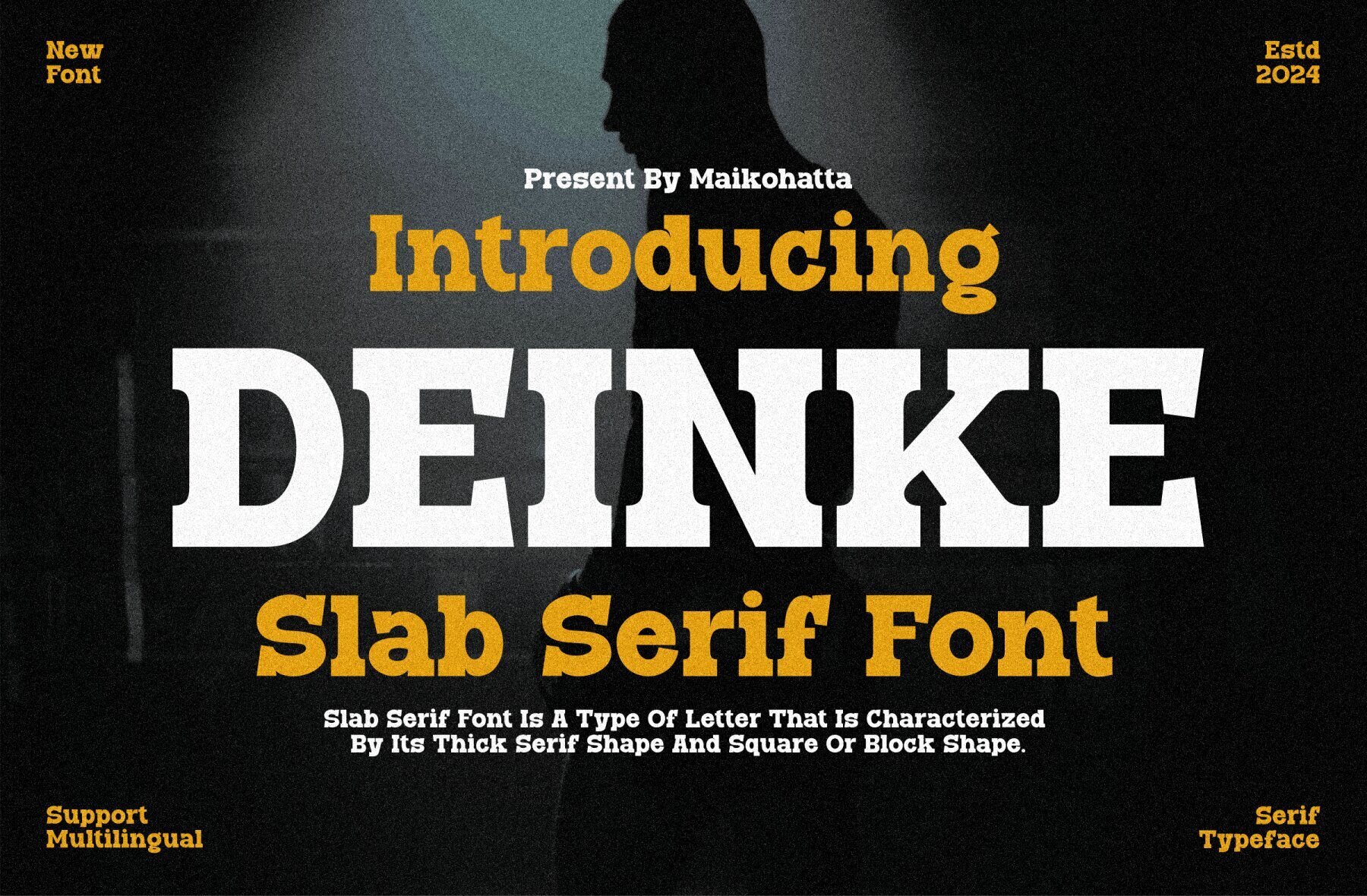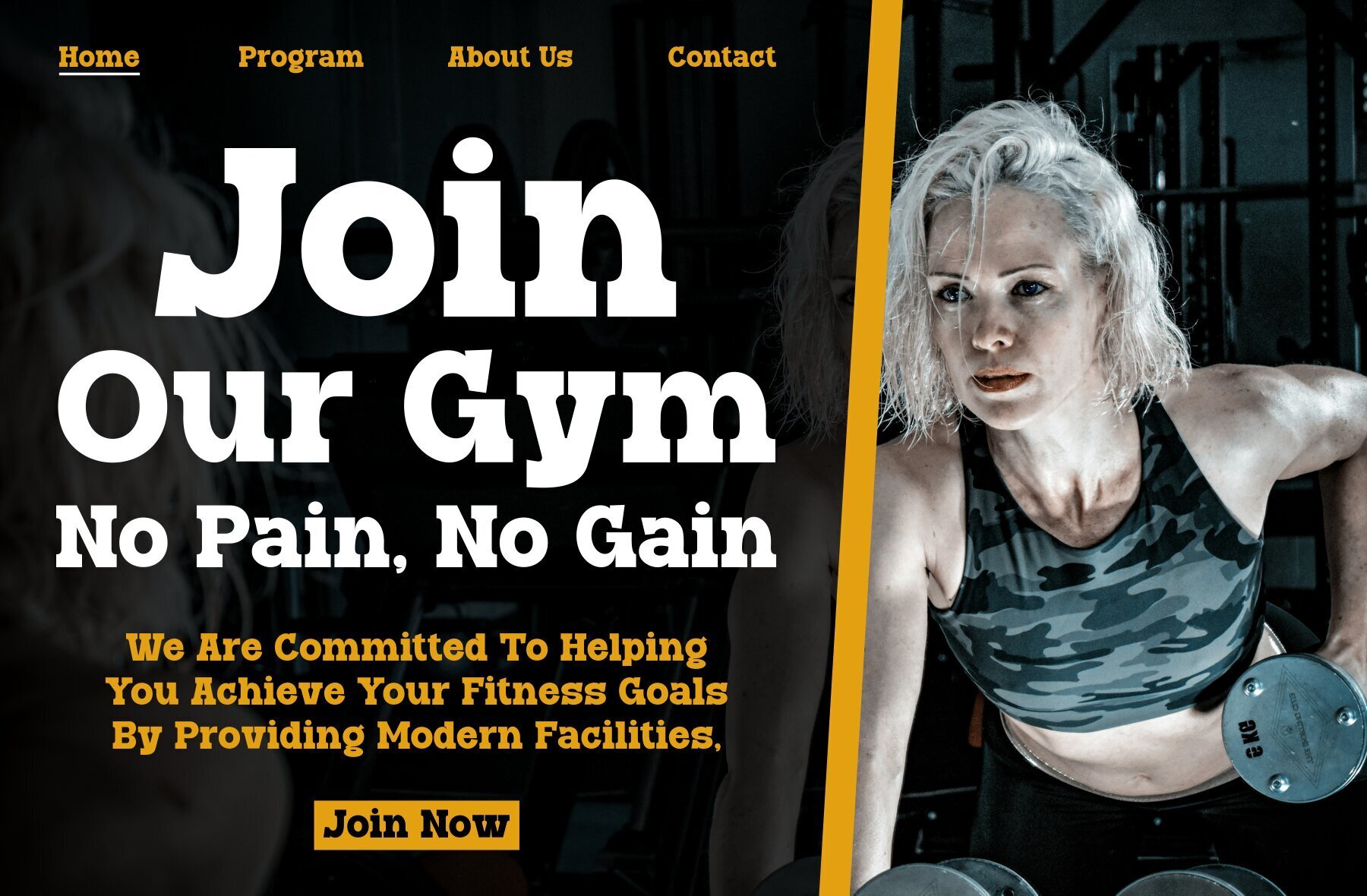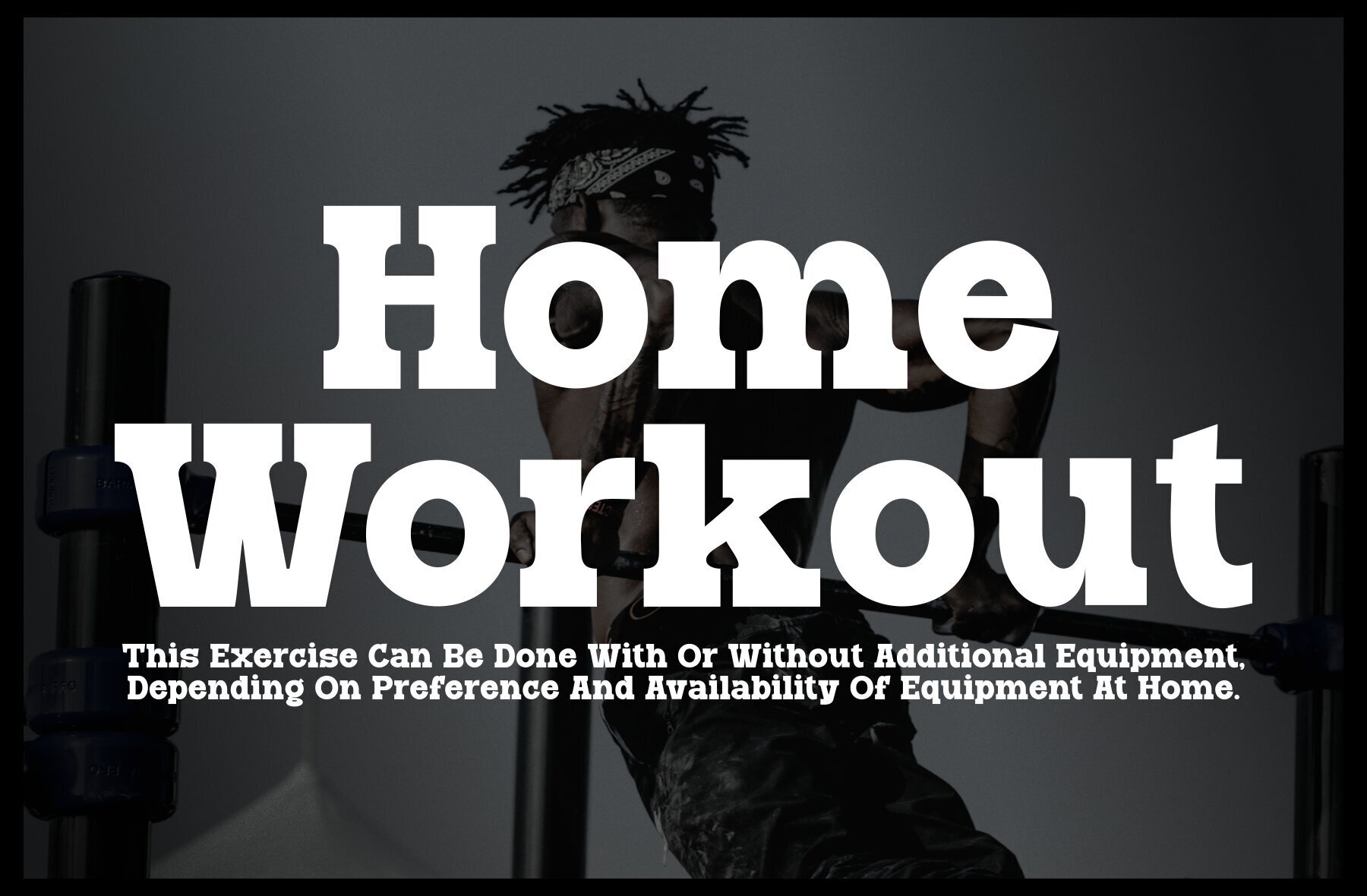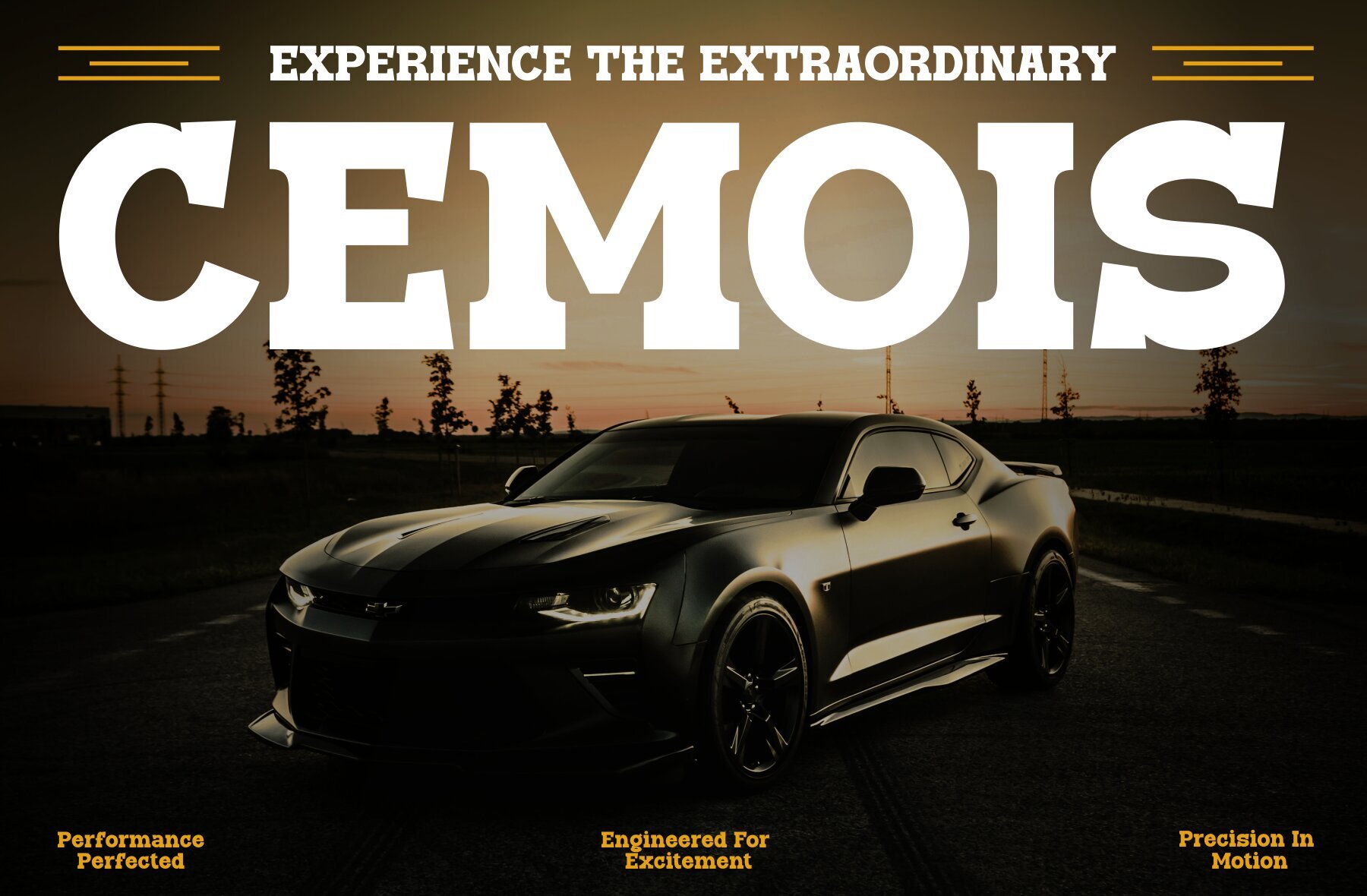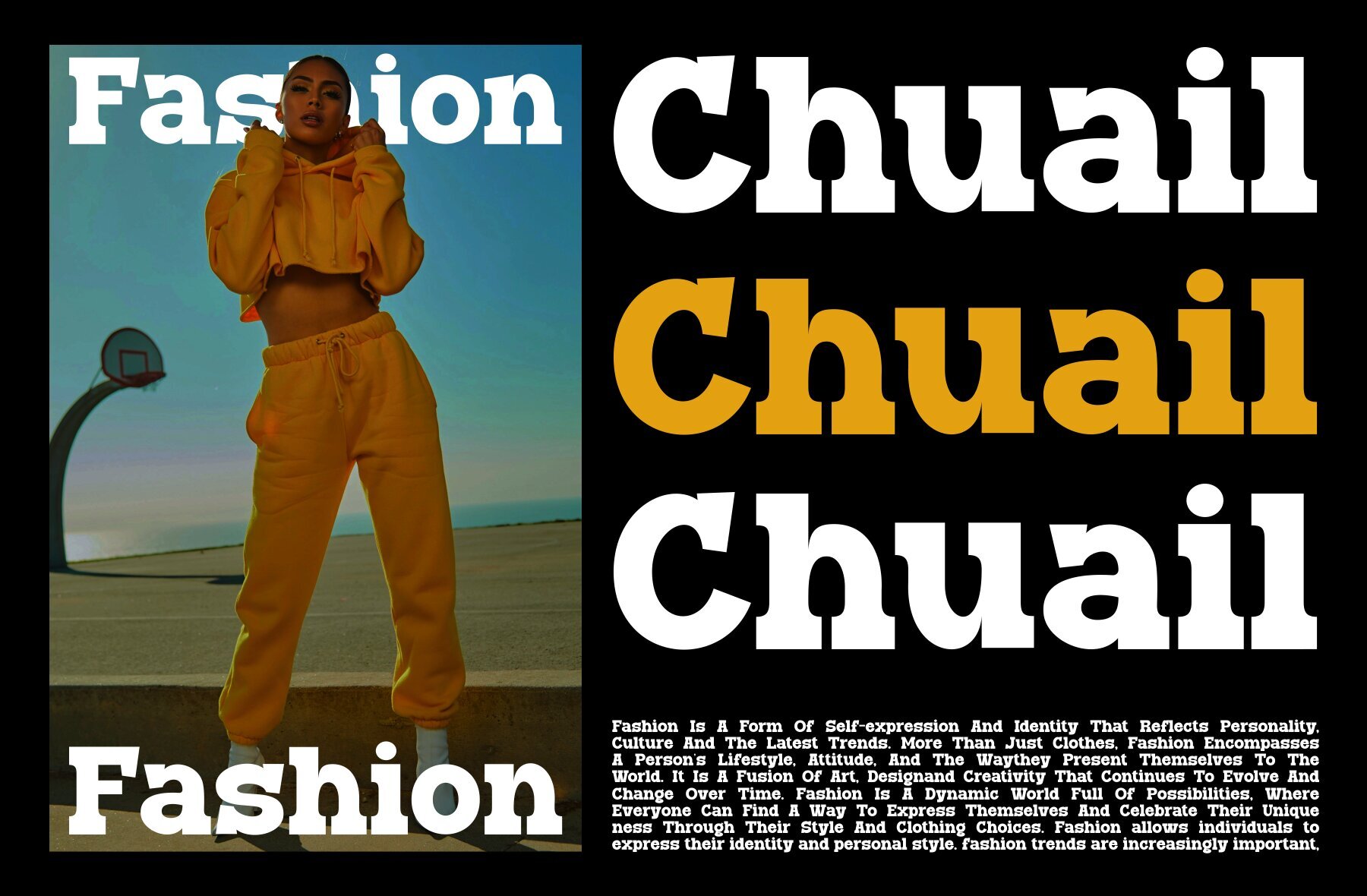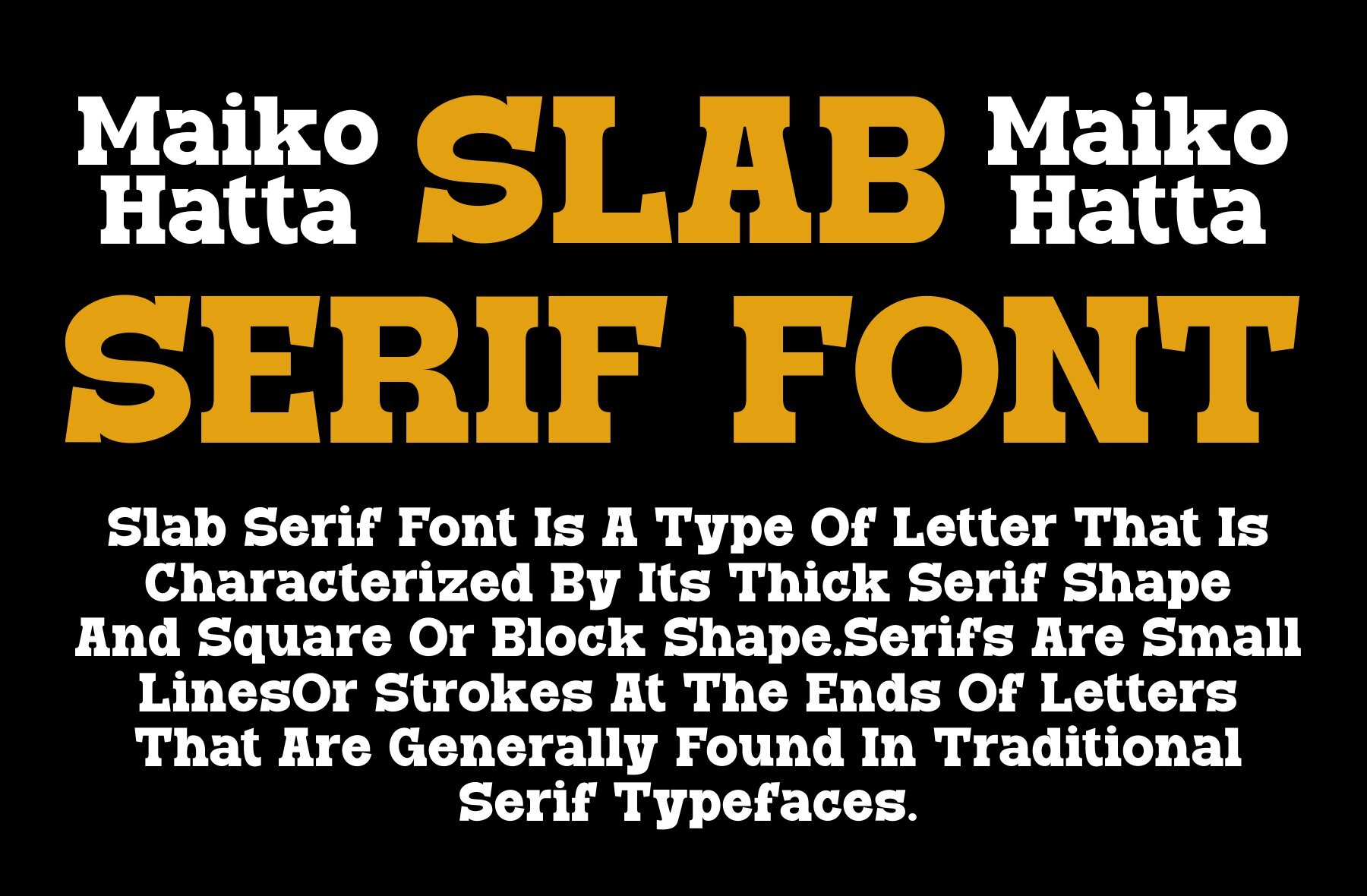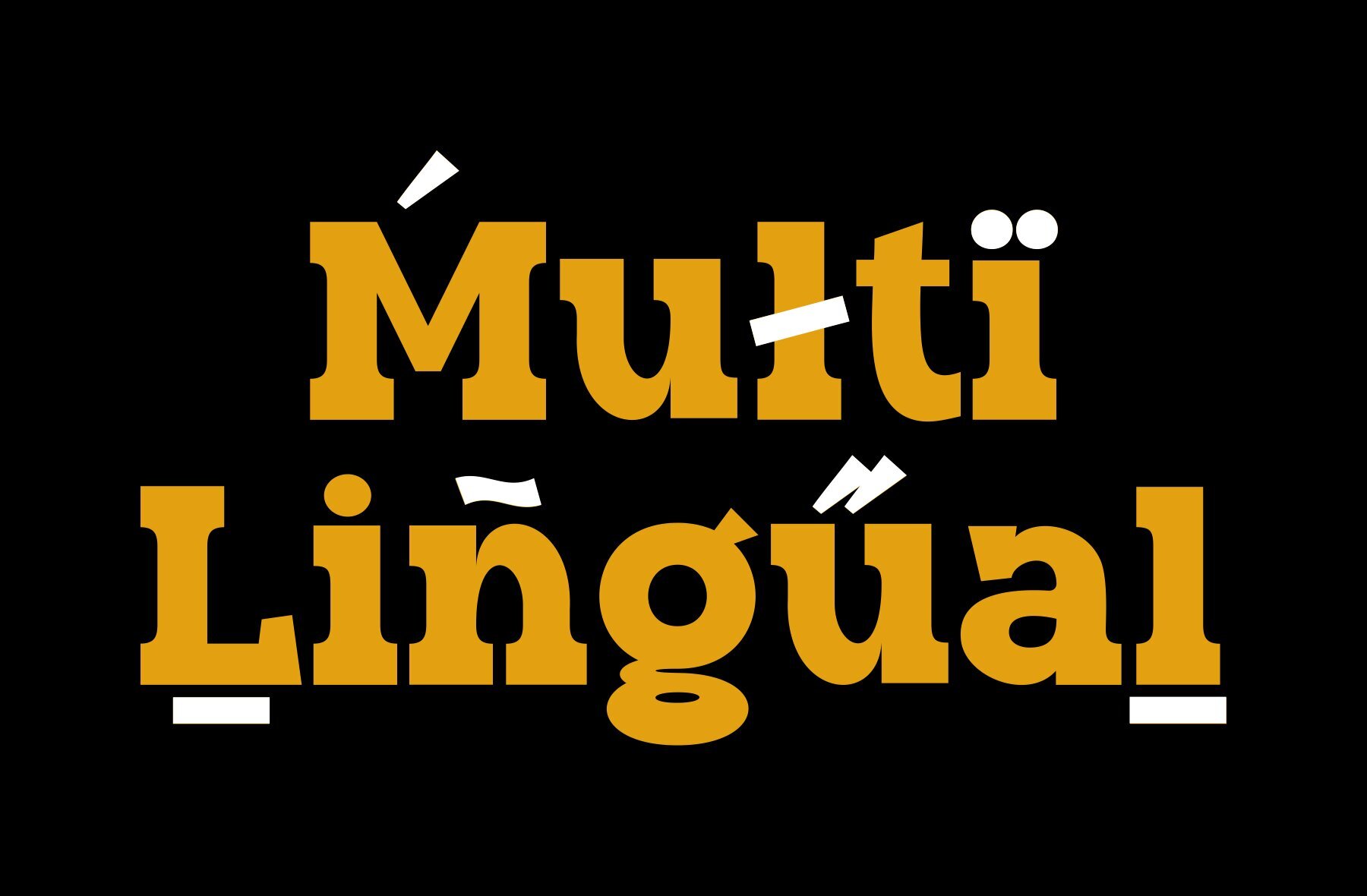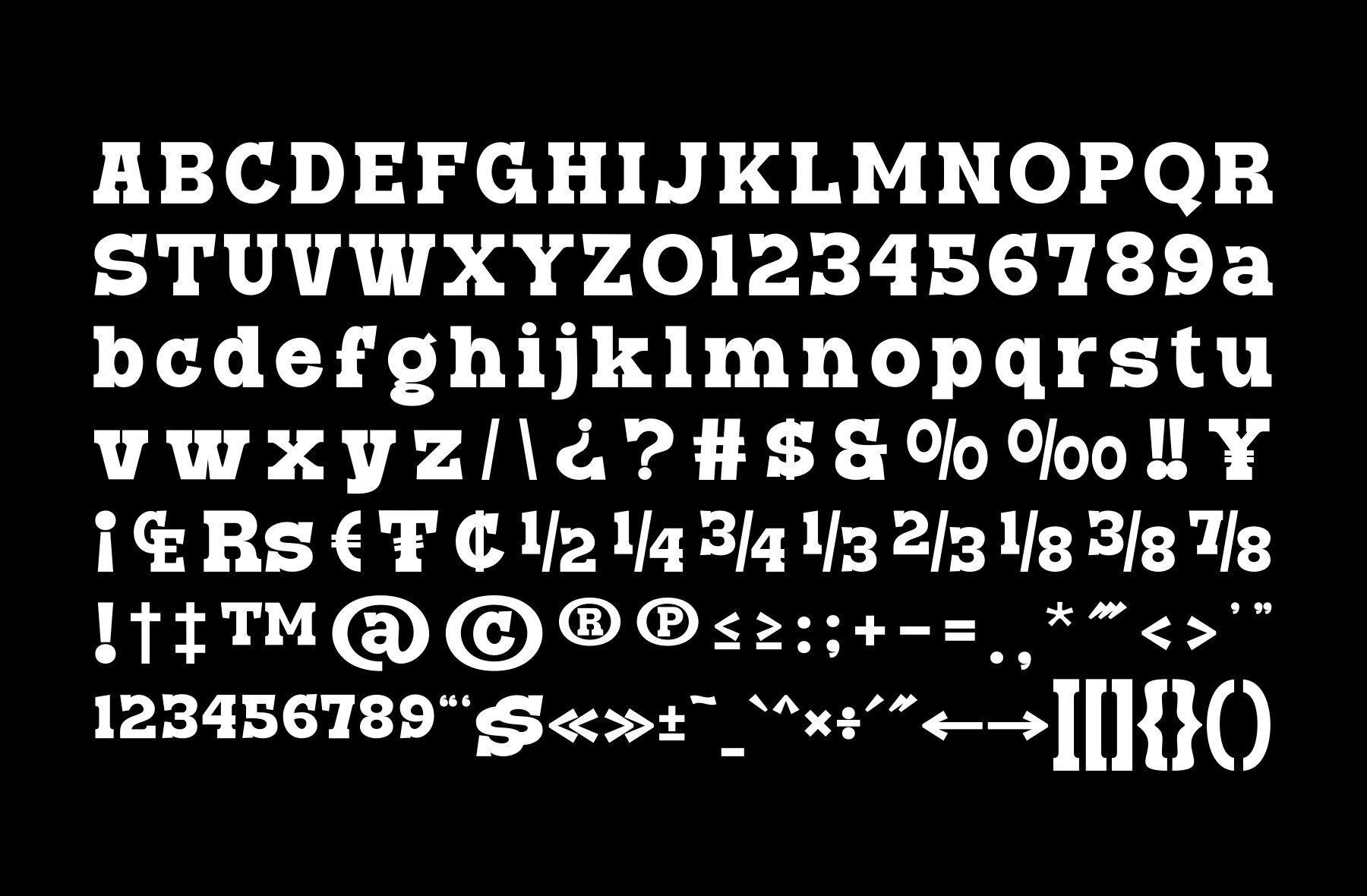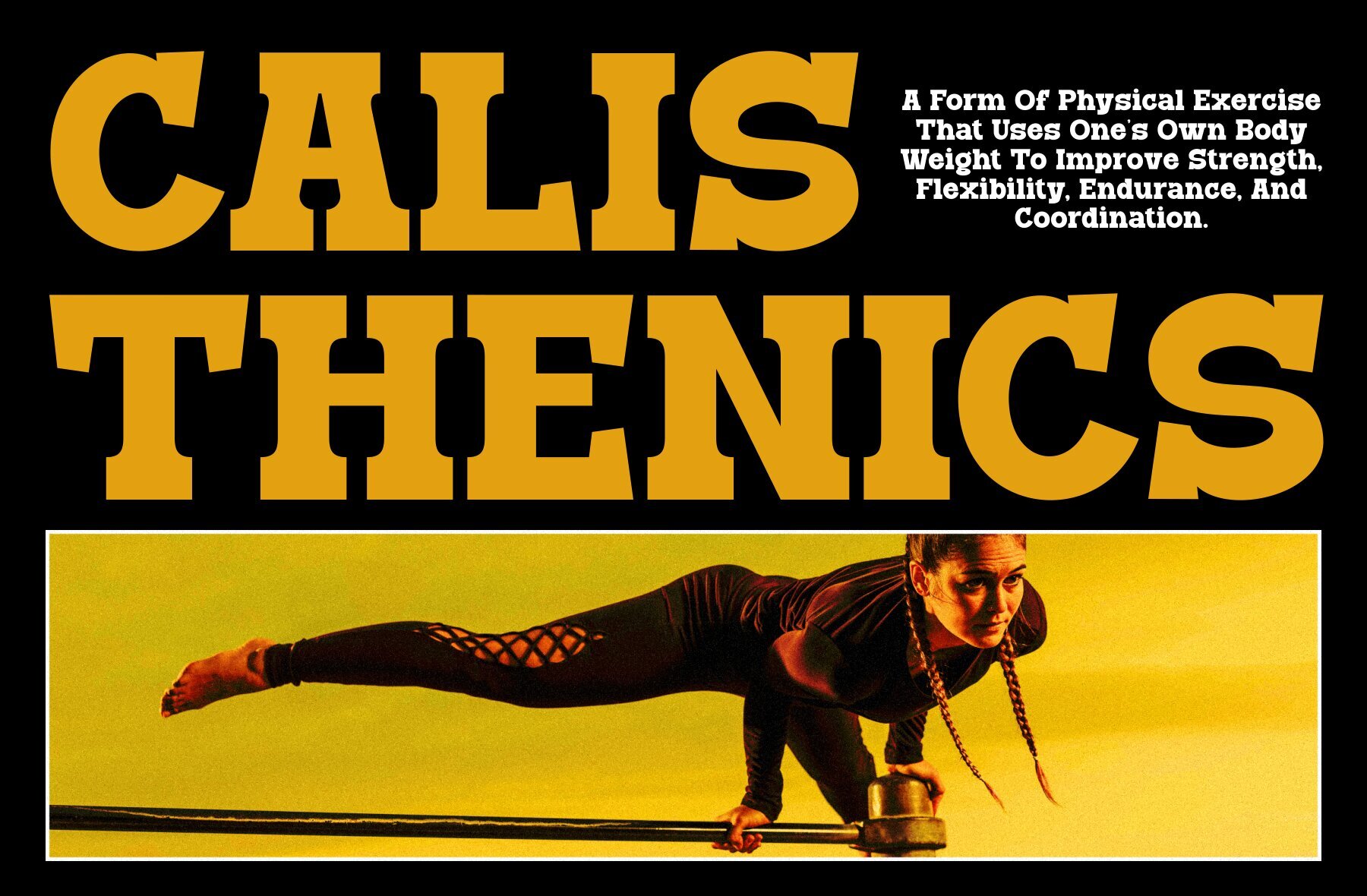
Deinke Font
Deinke Regular
Deinke - Slab Serif Font
Deinke is a vibrant slab serif font that embodies joy, cheerfulness, and a light-hearted atmosphere with its playful handwritten style. Perfectly suited for projects aimed at infusing a sense of fun, this font brings a whimsical touch often seen in comics or cartoons. Whether you're designing posters, invitation cards, or promotional materials, Deinke adds a playful vibe that appeals to younger audiences or anyone looking for a fun aesthetic.
This font includes a full set of uppercase and lowercase letters, making it versatile for various design needs. Additionally, it supports multilingual characters, ensuring your creative projects can cater to a global audience. With Deinke, bring a lively and entertaining element to your next project.